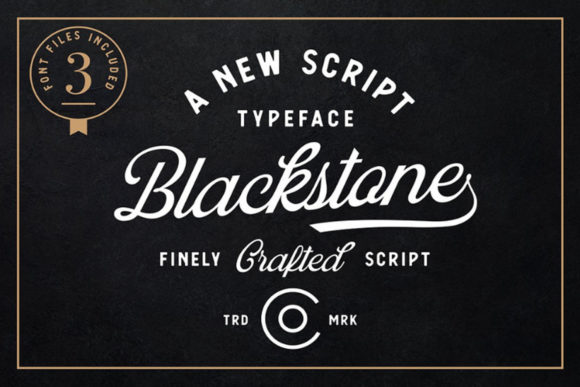
Introducing Blackstone Font – Where Elegance Meets Authenticity
Step into a world of visual enchantment with Blackstone Font, the ultimate script font designed to add a touch of timeless sophistication to your creative projects. Crafted by the artistic hands at Hustle Supply Co., Blackstone embodies the essence of classic elegance fused with the authenticity of handwritten calligraphy.
Blackstone's exquisite letterforms dance across the page with a captivating rhythm, evoking a sense of heritage and charm. Its sweeping curves and delicate flourishes lend an air of refinement to any design, transforming ordinary words into captivating works of art.
Unleash your creativity and delve into a realm of endless possibilities with Blackstone. Its versatility extends across a myriad of applications, from wedding invitations that exude romance to military-inspired designs that command attention. Let your imagination run wild as you create logos that radiate boldness, posters that resonate with elegance, or social media posts that captivate your audience.
Blackstone's timeless beauty transcends trends, ensuring your designs remain visually striking for years to come. It's the perfect choice for projects that demand a touch of class and sophistication, where every letter tells a story and every word leaves a lasting impression.
Embrace the allure of Blackstone and elevate your designs to new heights. Let its enchanting script transport you to a world where elegance and authenticity reign supreme. Experience the magic of Blackstone Font today and unlock the door to limitless creativity.